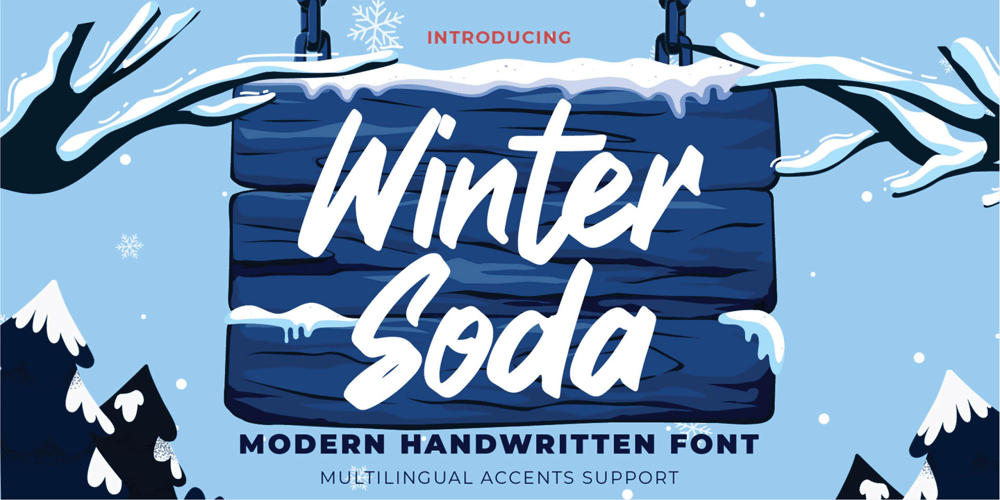
Winter Soda Font Family was designed by Abdul Malik Wisnu, Anang Fibriyanto and published by Gassstype. Winter Soda contains 1 styles and family package options. Winter Soda – is Modern Hand Written font with a natural feel. This handmade font will make your design has a beautiful natural touch for each details. It is perfect for any design project as Invitation,logo, book cover, craft or any design purposes.This font is PUA encoded which means you can access all of the magical glyphs with ease! It also features a wealth of special features including ligatures glyphs .Inspired by Food Logo style and combination with Cute Craft style. that will fulfill your design needs for quotes,sporty theme, logotype, wordmark, etc. This has many opentype features and support multi language.